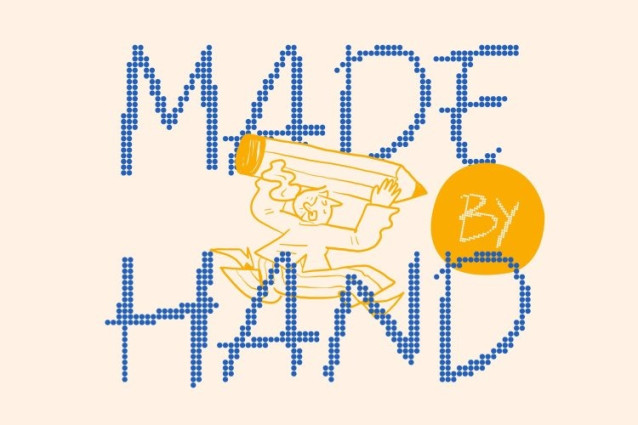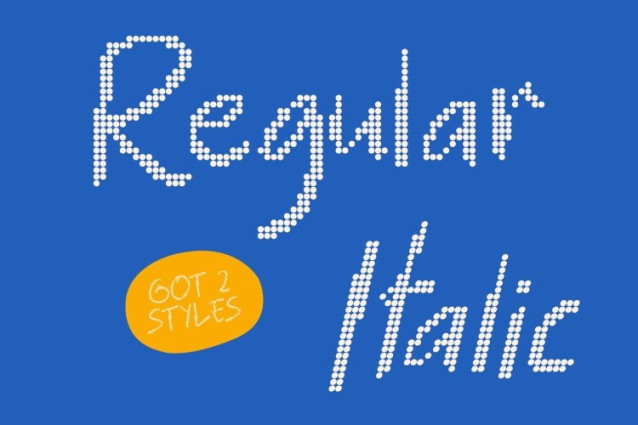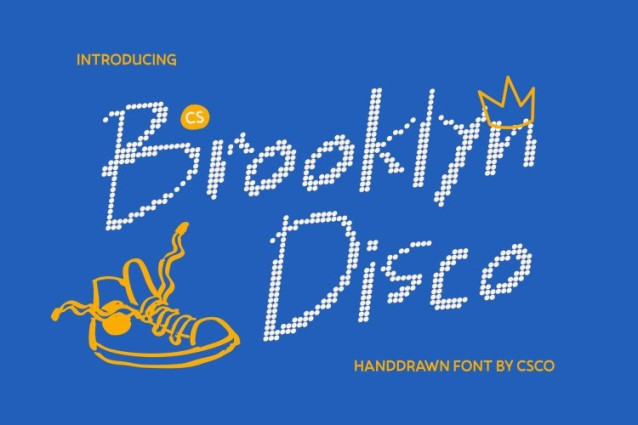
CS Brooklyn Disco Font
CS Brooklyn Disco Font – This transforms its relaxed handwritten charm into a dazzling dotted display inspired by the vibrant lights of a dance floor. Its flowing strokes maintain a natural, carefree rhythm, now enhanced with radiant dot details that give every letter a lively sparkle. The result is a font that feels youthful, stylish, and full of celebratory energy.
Funky Flow with Luminous Rhythm
The smooth handwritten lines keep their effortless movement, while the disco-inspired dotted construction introduces playful texture and visual rhythm. Each character appears to glow with motion, as if illuminated by colorful lights, bringing dynamic life to every word.
Modern Edge with Party Personality
This font balances casual handwriting with modern style, blending trendy aesthetics with festive flair. Its relaxed curves and glowing accents create a look that feels cool, expressive, and instantly eye-catching perfect for designs that want to feel fresh and vibrant.
Perfect for Youthful and Creative Projects
Ideal for social media graphics, lifestyle branding, apparel designs, music posters, and event promotions, this font adds personality and sparkle to every layout. It’s especially effective in bold headlines or playful logotypes where energy and style matter most.